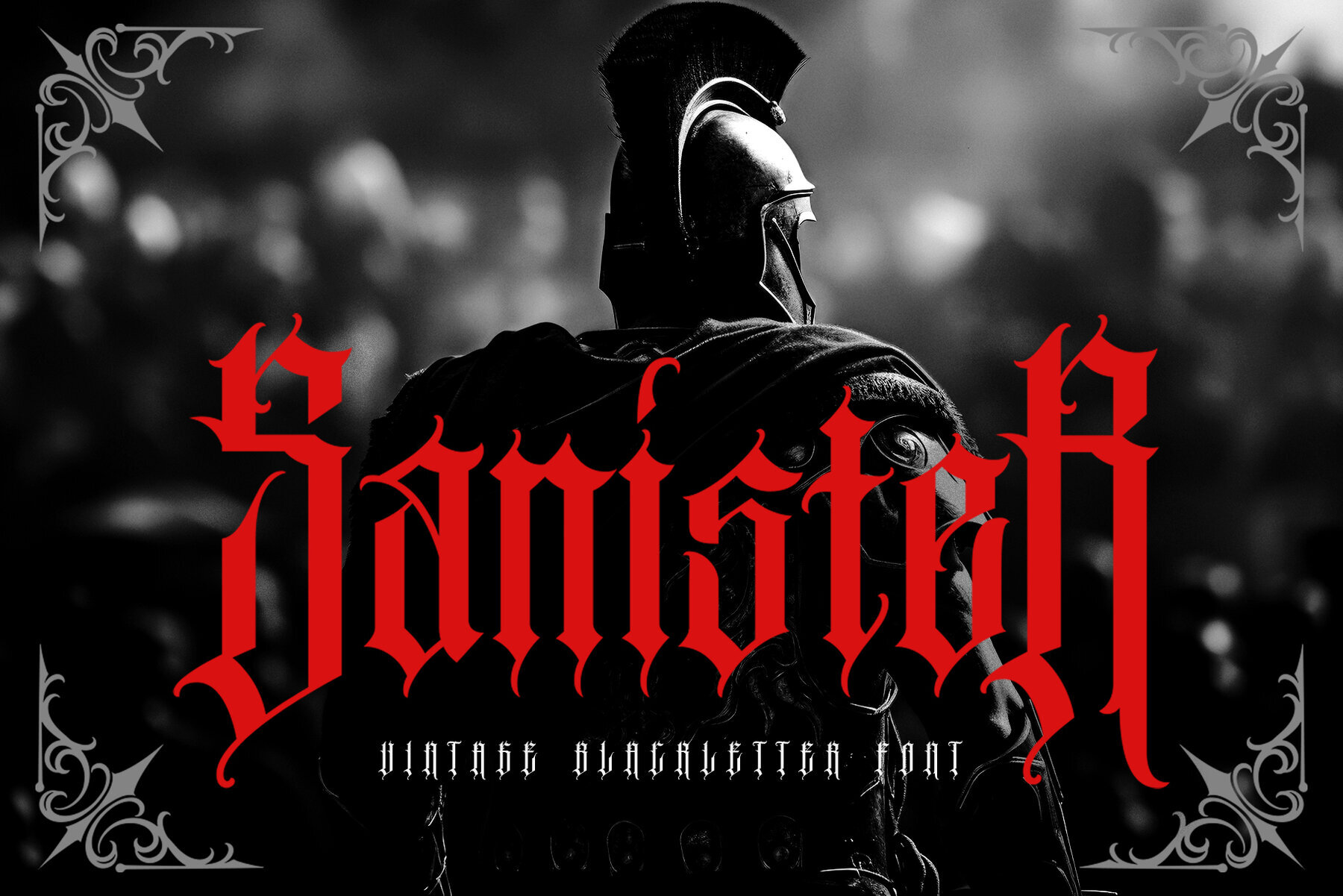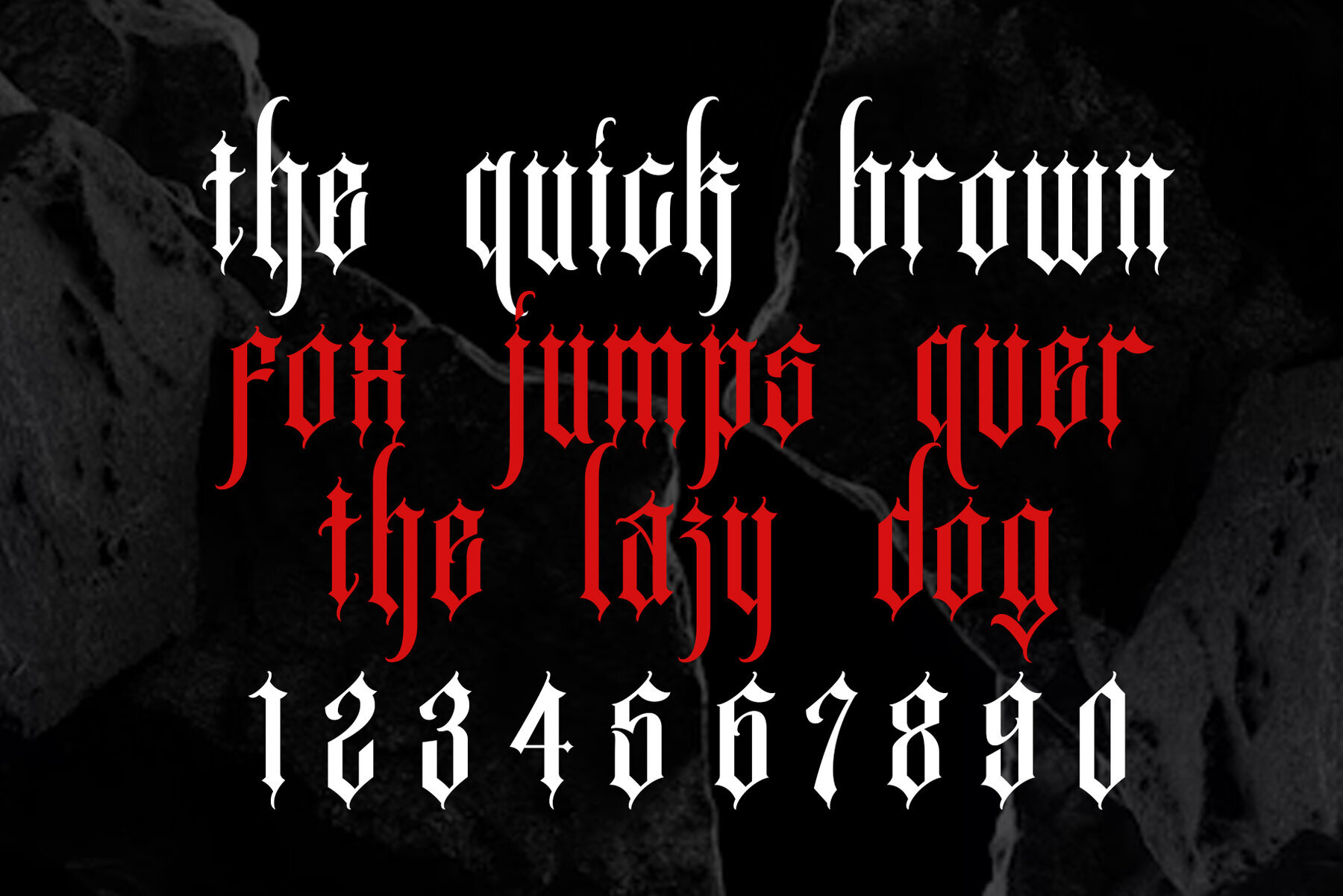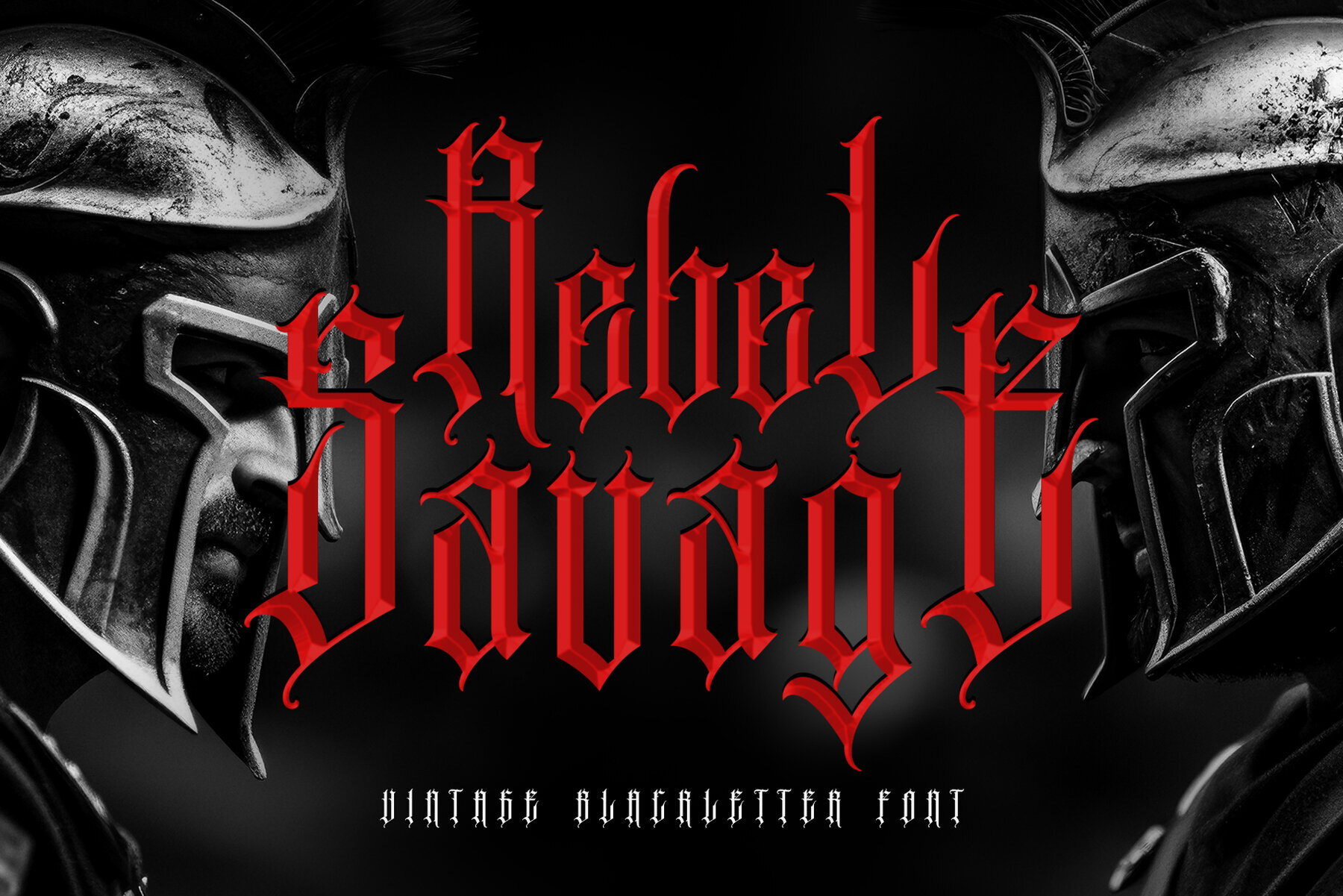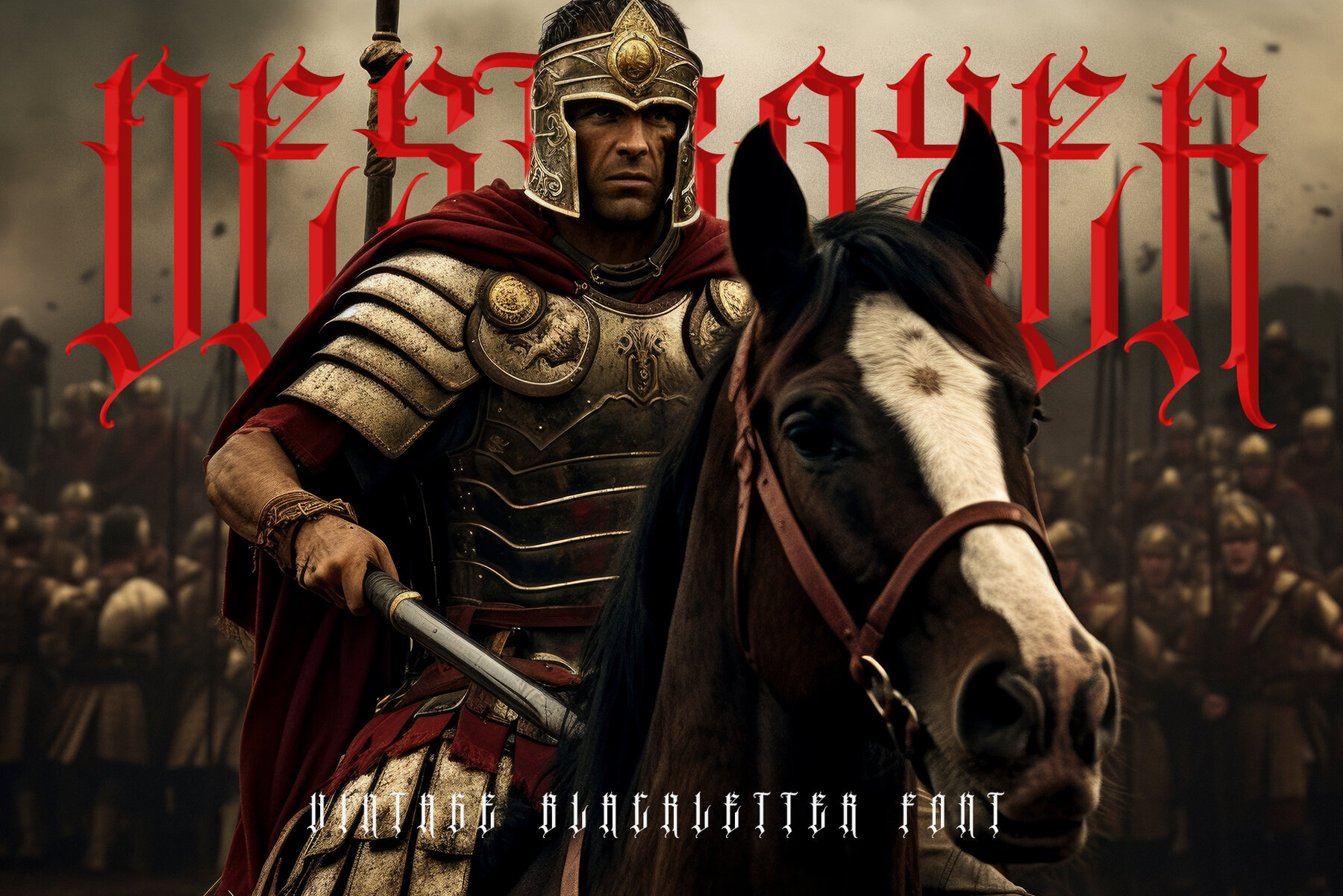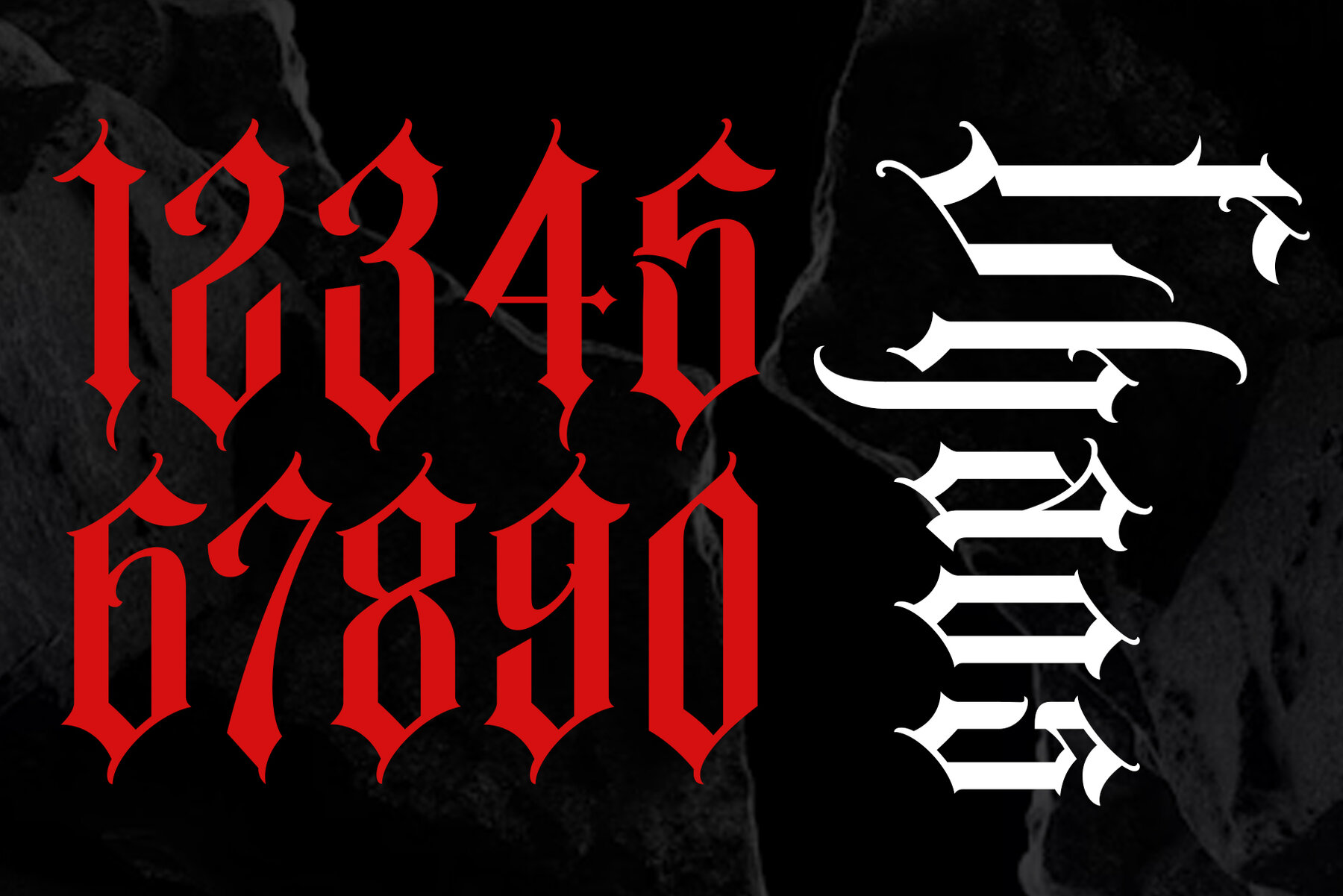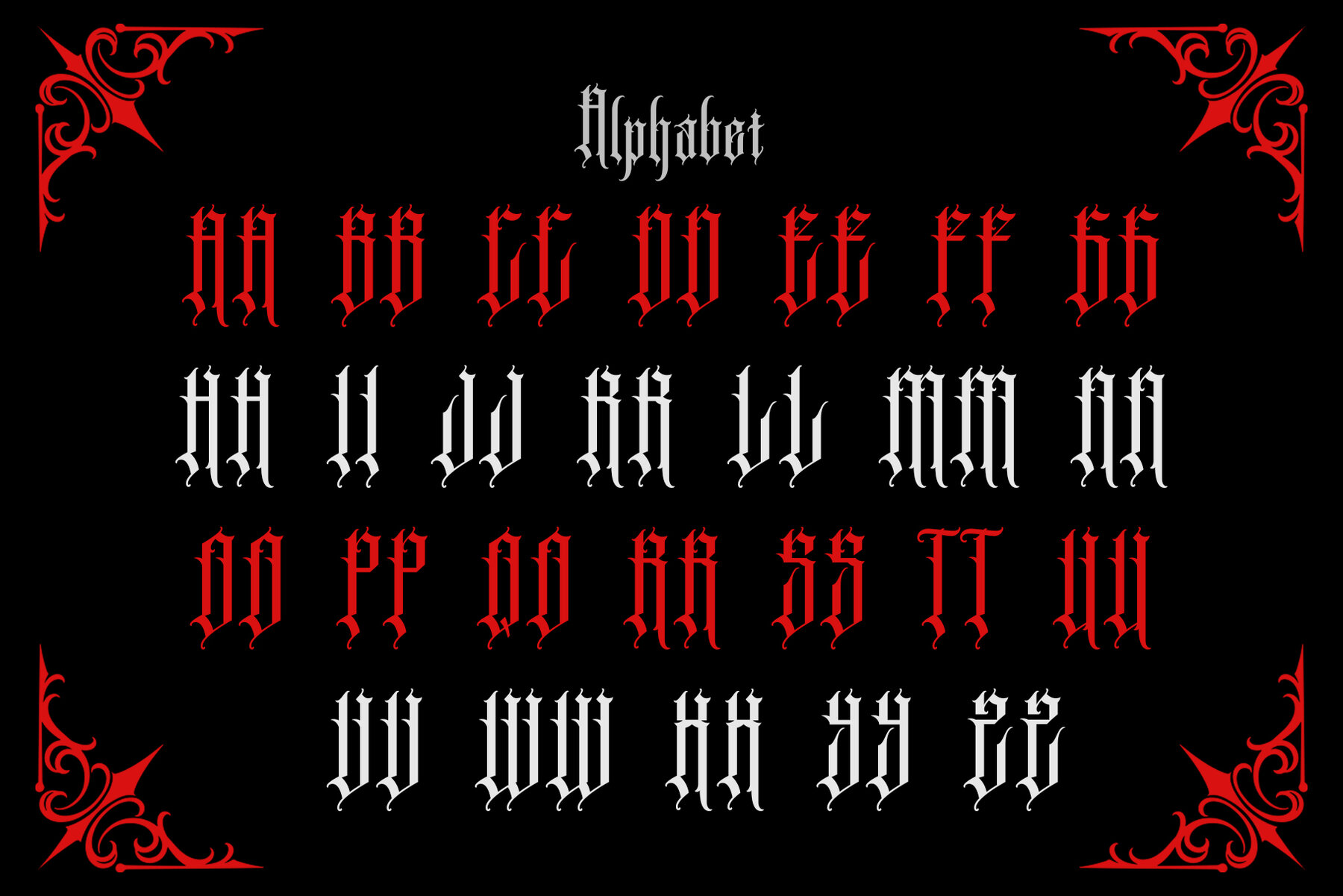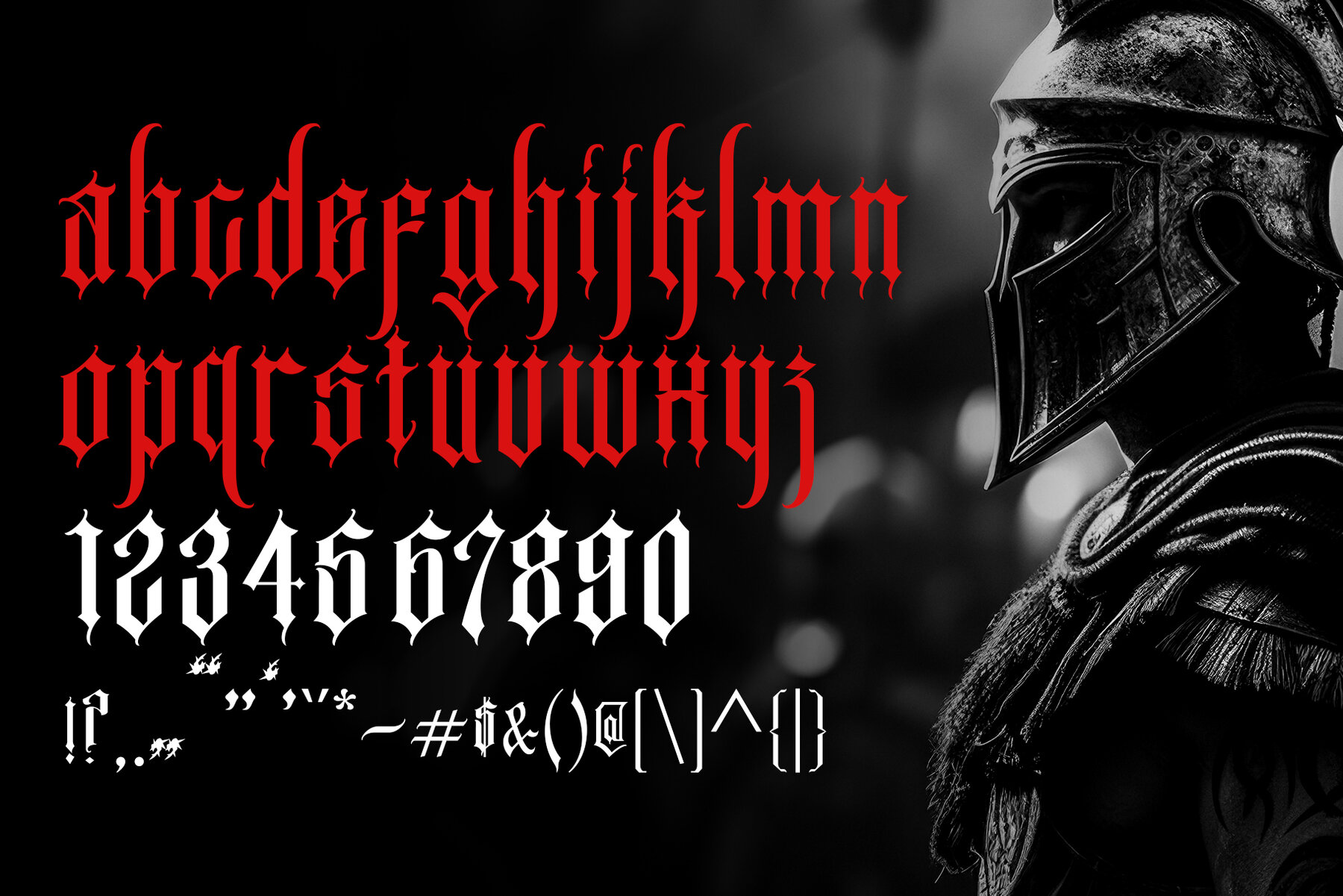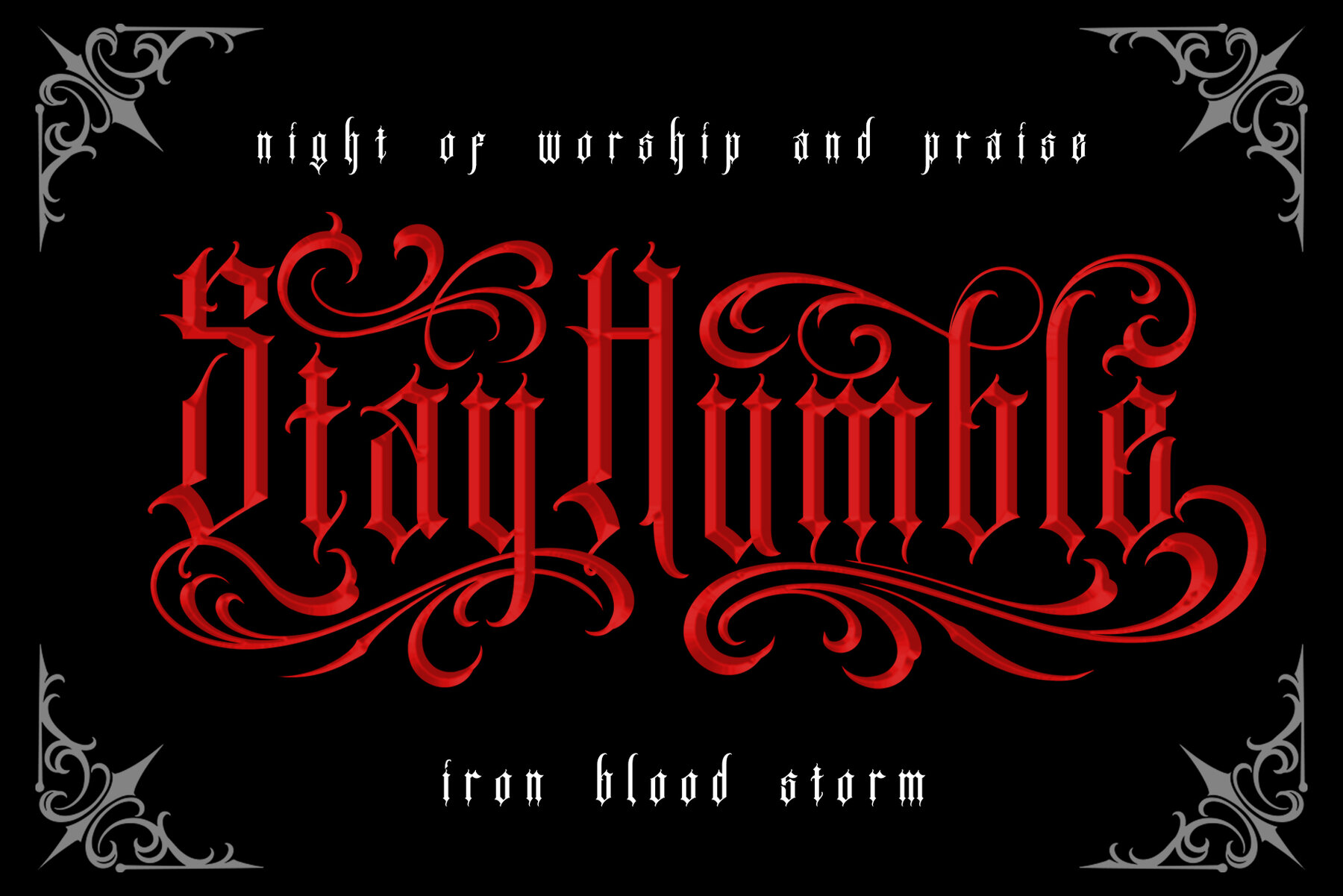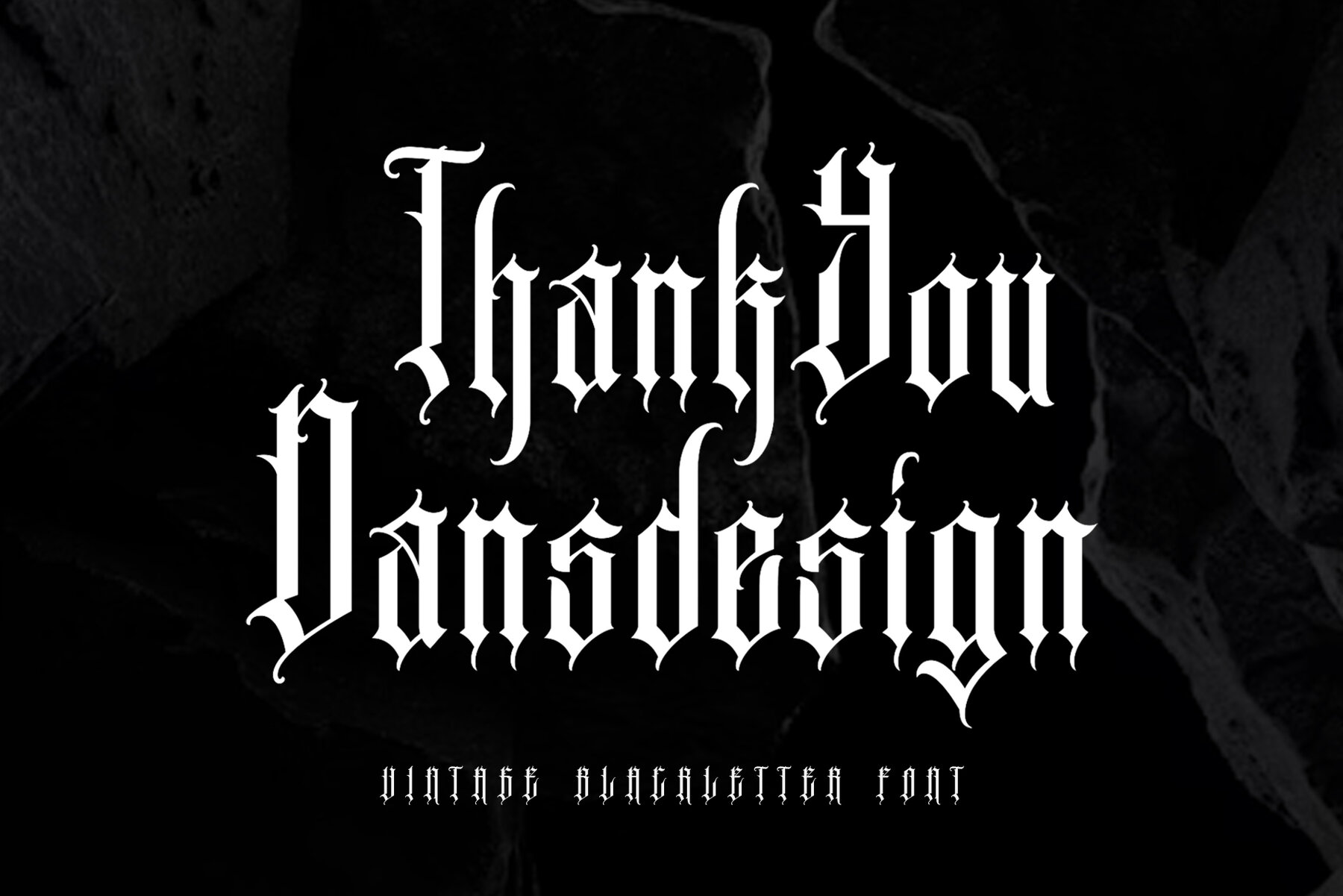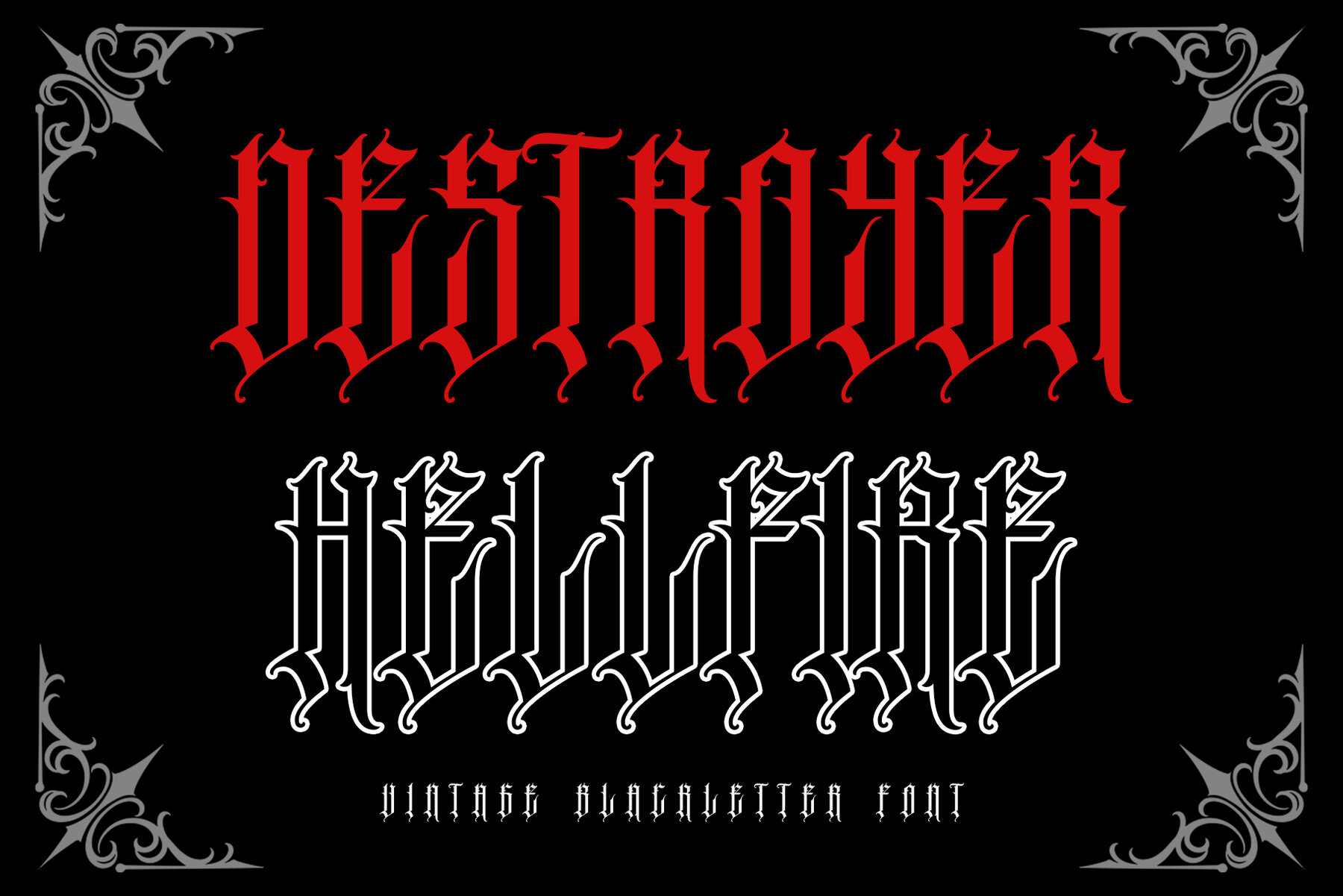
Sanister Font
SanisteR
Sanister is a bold blackletter font that blends Gothic tradition with a contemporary edge. The sharp strokes and graceful curves catch the eye, while intricate detailing adds unique character. Sanister’s modern blackletter design is ideal for logo creation, tattoo concepts, vintage posters, apparel design, packaging, and projects with a retro-urban tone. It delivers a memorable presence, making your work stand out in both digital and print environments. This versatile typeface adds a strong, artistic, and authentic impression to any creative project. Its clean lines and bold forms lend confidence and style, working seamlessly across a range of design applications.Sanister – Modern Blackletter Font